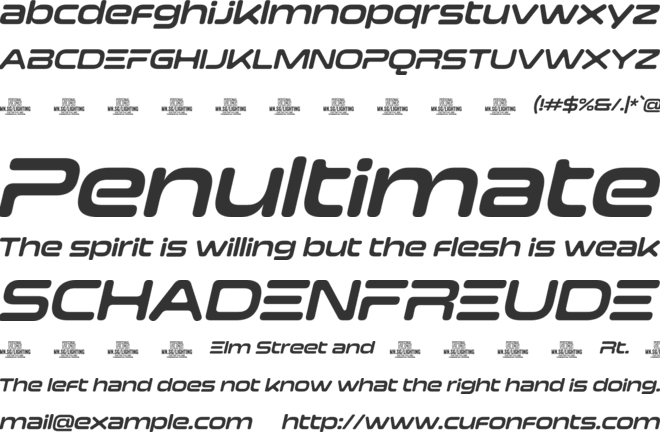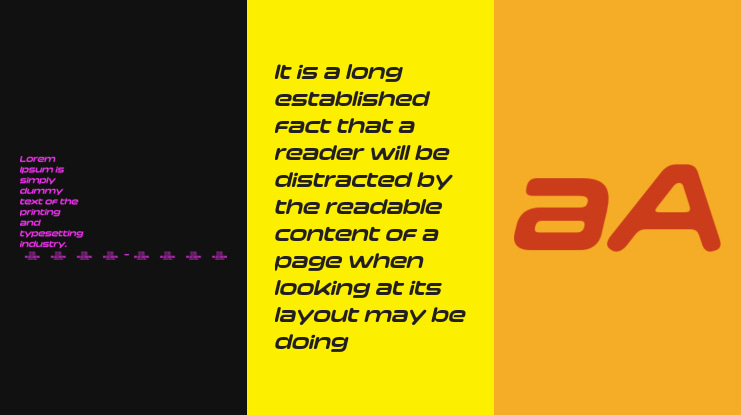
Lighting Lettering PERSONAL Font
NOTE: This font is for PERSONAL USE ONLY!To purchase a commercial license, visit:https://www.mansgreback.com/product/lighting-letteringLighting Lettering is a font that zips across the page!With its speedy italic design and rounded square look, Lighting Lettering injects a sense of modern urgency. Sports branding and tech products, or even the titles of a high-octane racing game, are some of its uses. For questions, please visit www.mn.sg/faq